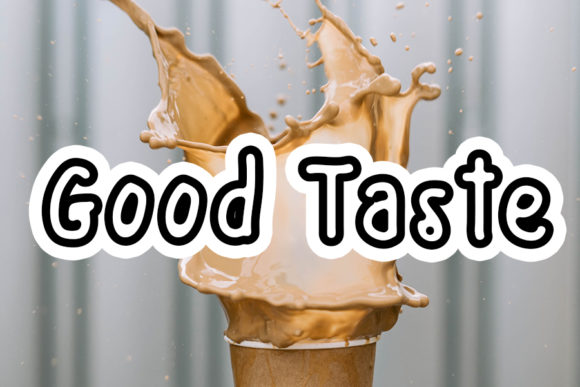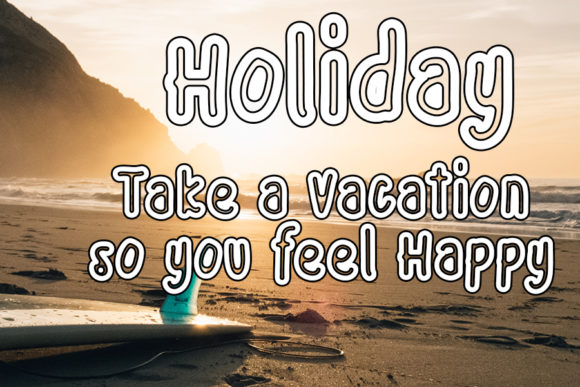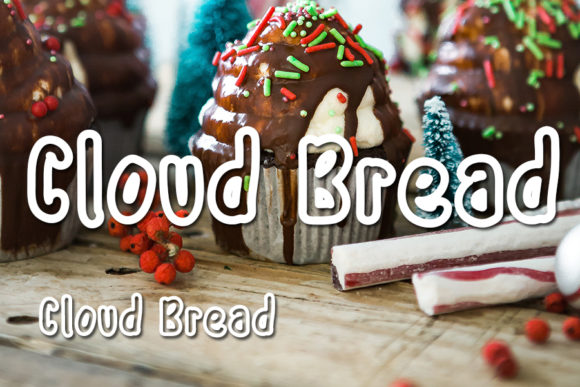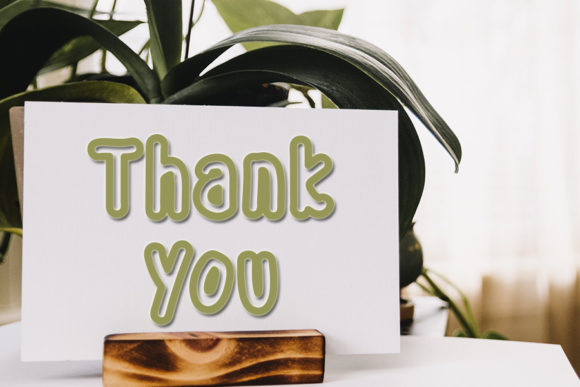
Dalgona Coffee Font: Elevate Your Designs with a Simple yet Striking Display Font
In the world of design, fonts play a crucial role in conveying messages, evoking emotions, and creating visual identities. For designers and crafters looking for a unique and impactful font to elevate their creative projects, Dalgona Coffee is an excellent choice. This simple and neat outlined display font is designed to make your designs stand out, and in this article, we’ll explore its features, benefits, and uses.
What is Dalgona Coffee Font?
Dalgona Coffee is a modern, outlined display font that exudes simplicity and elegance. Its clean lines, precise curves, and carefully crafted letterforms make it an ideal choice for designers seeking a font that can add a touch of sophistication to their work. The font’s outline design gives it a distinctive look that can be used to create visually appealing headings, titles, and text elements.
Key Features of Dalgona Coffee Font
- Simple and Neat Design: Dalgona Coffee boasts a straightforward and uncomplicated design that ensures clarity and legibility, even at smaller font sizes.
- Outlined Letterforms: The font’s outlined design creates a beautiful, eye-catching effect that can add depth and visual interest to your designs.
- High Versatility: Dalgona Coffee can be used for a wide range of design projects, from digital media to print materials, and from headings to titles.
- Ease of Use: The font is easy to read and works well in combination with other fonts, making it a great addition to your font library.
Benefits of Using Dalgona Coffee Font
So, why should designers and crafters choose Dalgona Coffee for their projects? Here are some benefits that make it an attractive option:
- Enhanced Visual Appeal: The font’s unique outlined design and clean lines can instantly elevate the visual appeal of your designs, making them more engaging and attention-grabbing.
- Improved Readability: Dalgona Coffee’s simple and neat design ensures that your text remains clear and easy to read, even at smaller font sizes.
- Flexibility and Adaptability: The font’s versatility makes it suitable for various design projects, from modern digital media to traditional print materials.
- Time-Saving: With Dalgona Coffee, you can quickly create stunning designs without spending hours on typography, allowing you to focus on other creative aspects of your project.
Creative Uses of Dalgona Coffee Font
Dalgona Coffee is a versatile font that can be used in a variety of design projects, including:
- Digital Media: Use Dalgona Coffee for social media graphics, blog posts, and website headings to create a modern and visually appealing online presence.
- Print Materials: The font is perfect for designing posters, flyers, brochures, and business cards that require a clean and elegant look.
- Branding and Identity: Dalgona Coffee can be used to create logos, icons, and other visual elements that require a simple yet striking font.
- Crafting and DIY Projects: The font is also suitable for crafters who want to add a personal touch to their handmade projects, such as signs, labels, and cards.
In conclusion, Dalgona Coffee is a simple yet striking display font that can elevate your designs and make them stand out. Its clean lines, outlined design, and versatility make it an excellent choice for designers and crafters looking for a font that can add a touch of sophistication to their work. With Dalgona Coffee, you can create visually appealing designs that are both modern and elegant. So, add this font to your creative arsenal and notice the difference it makes!